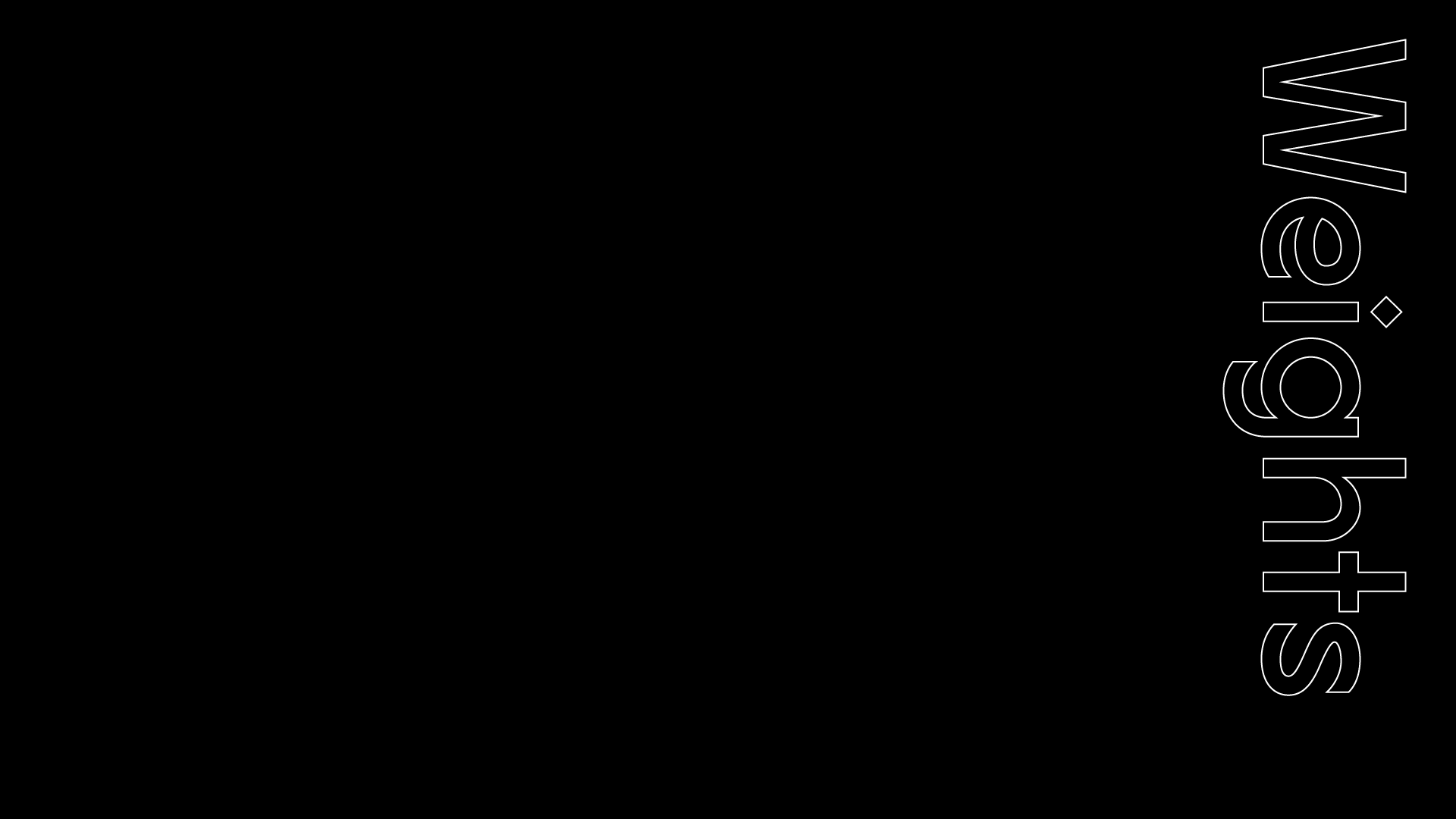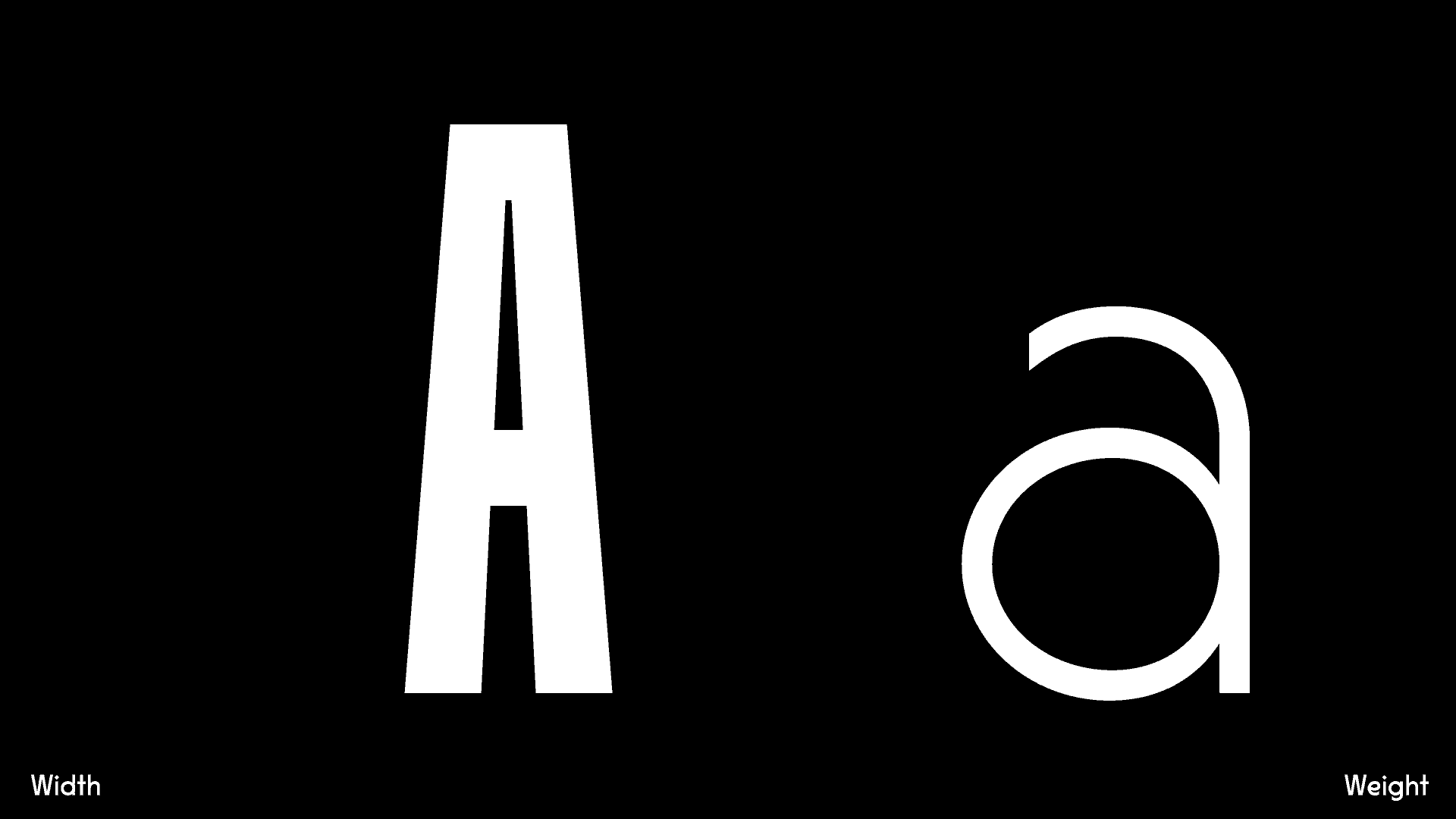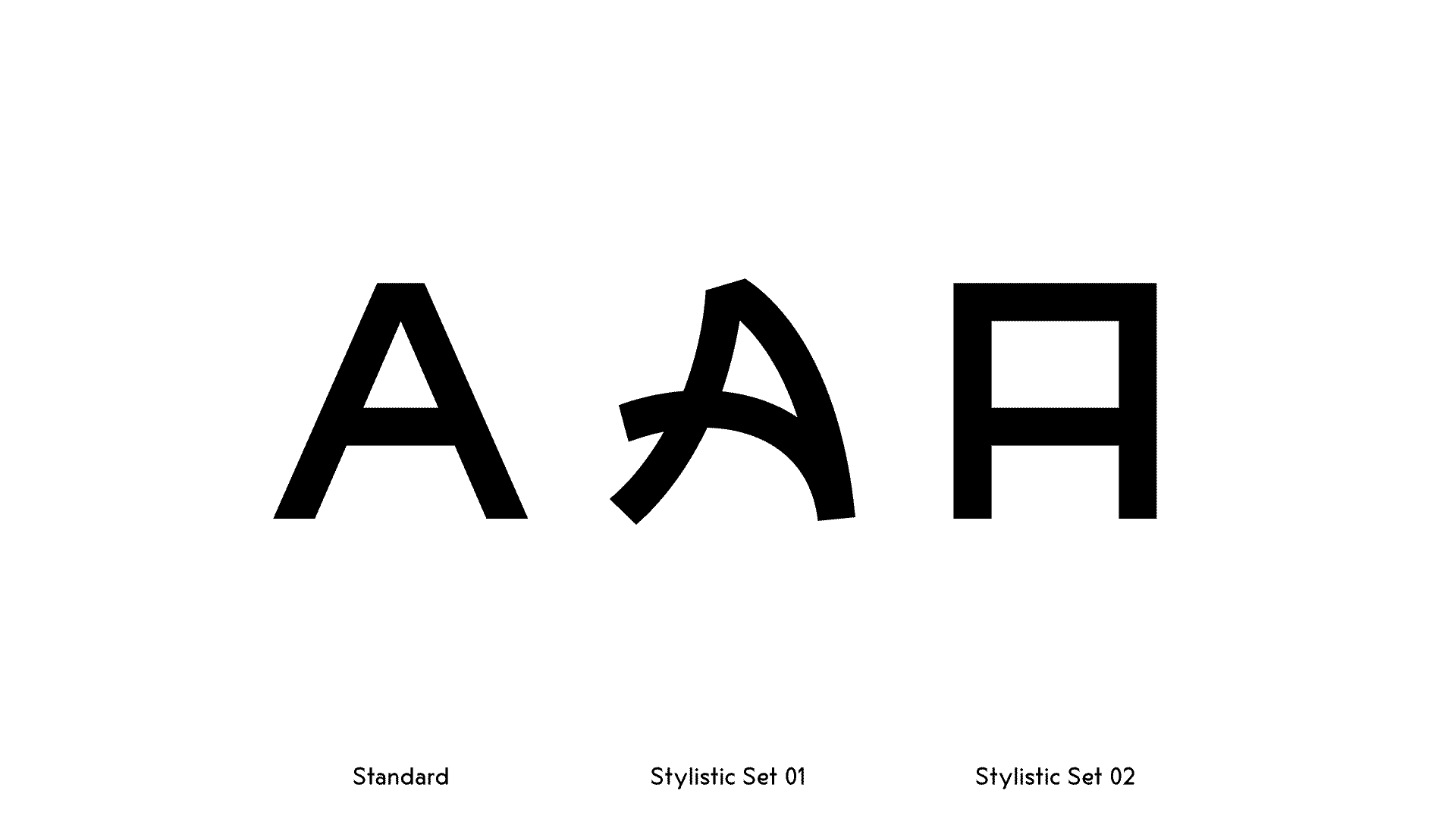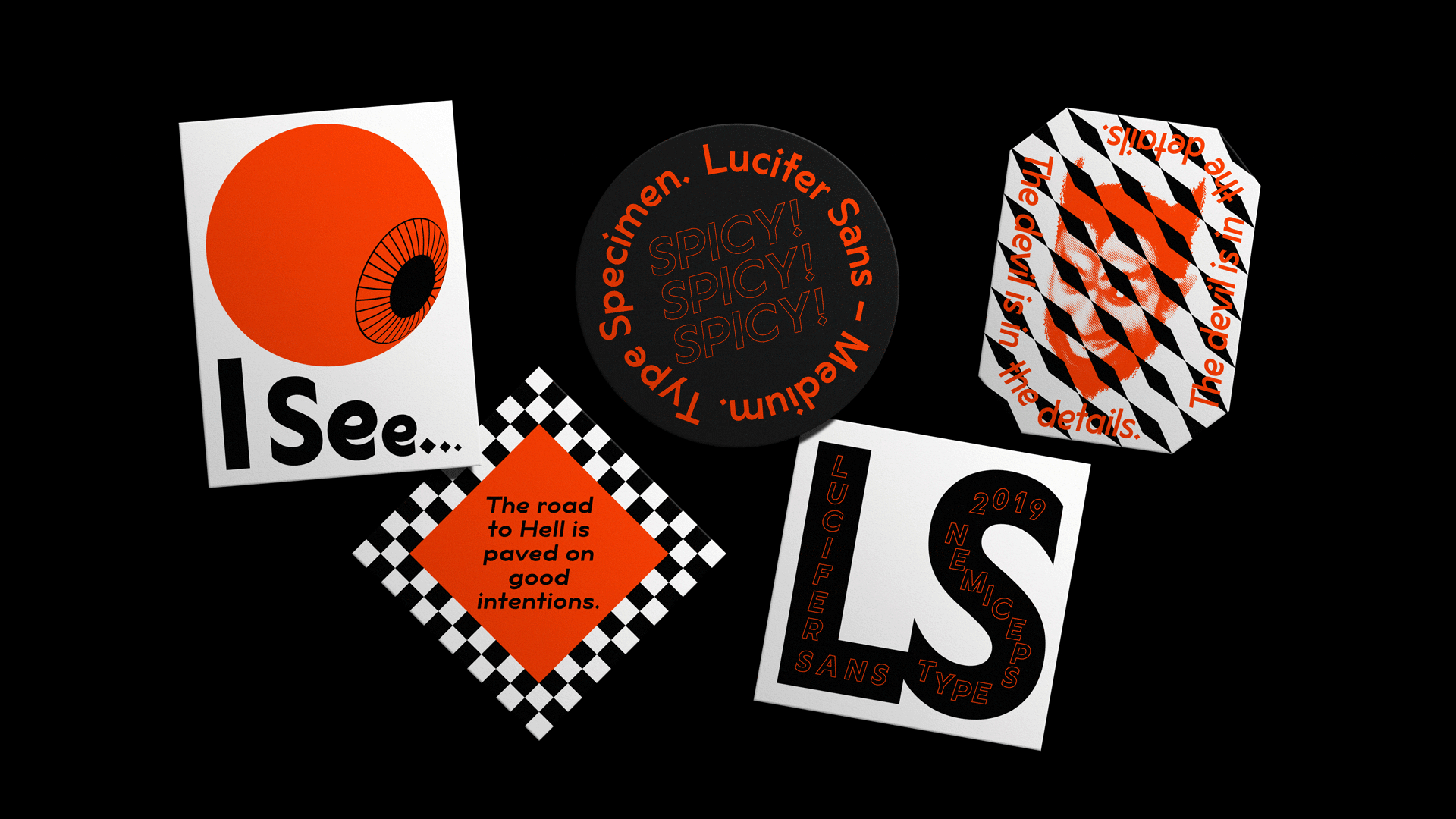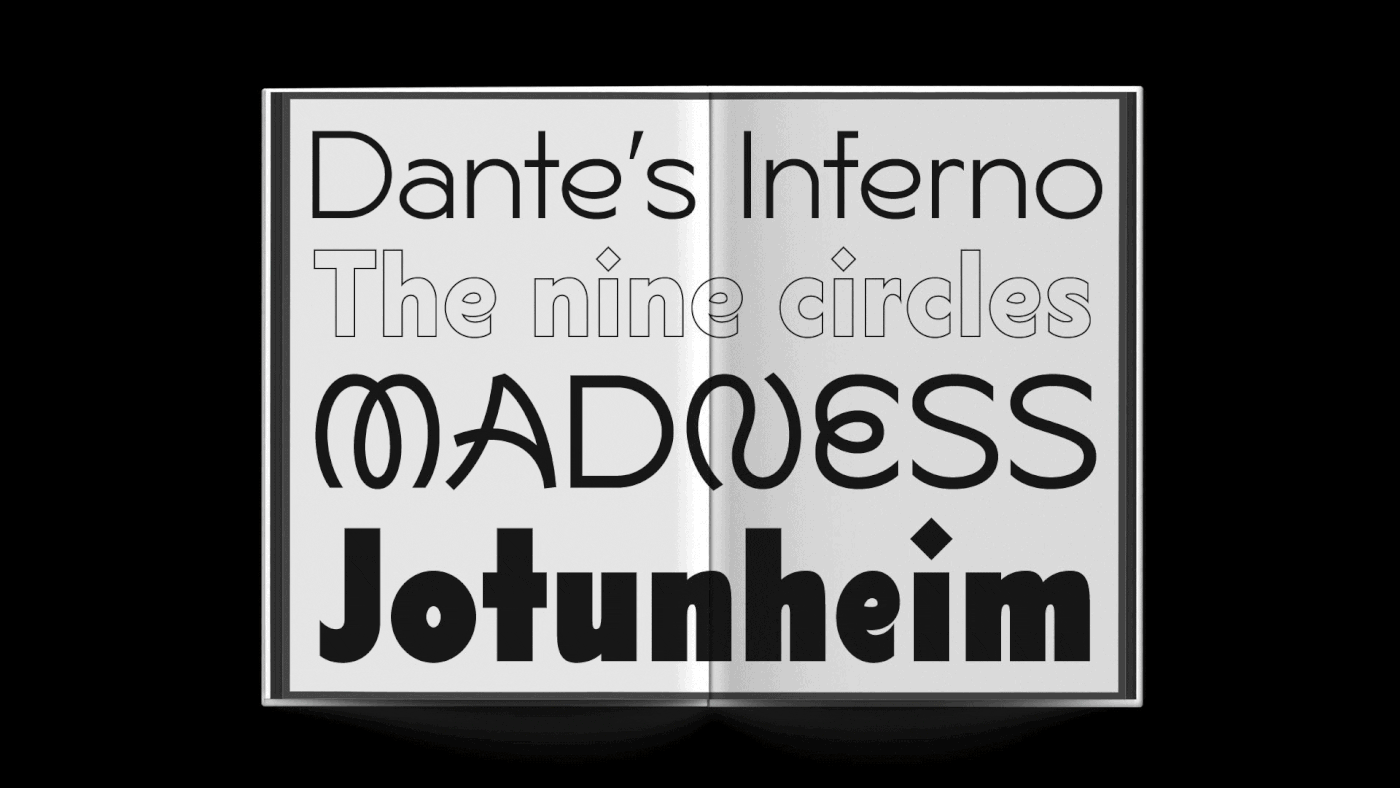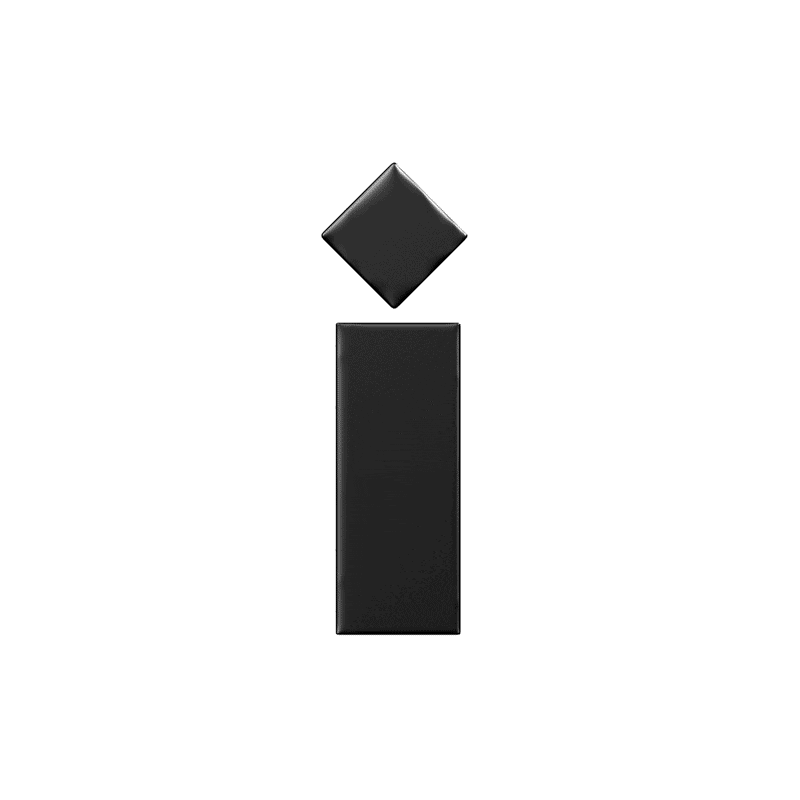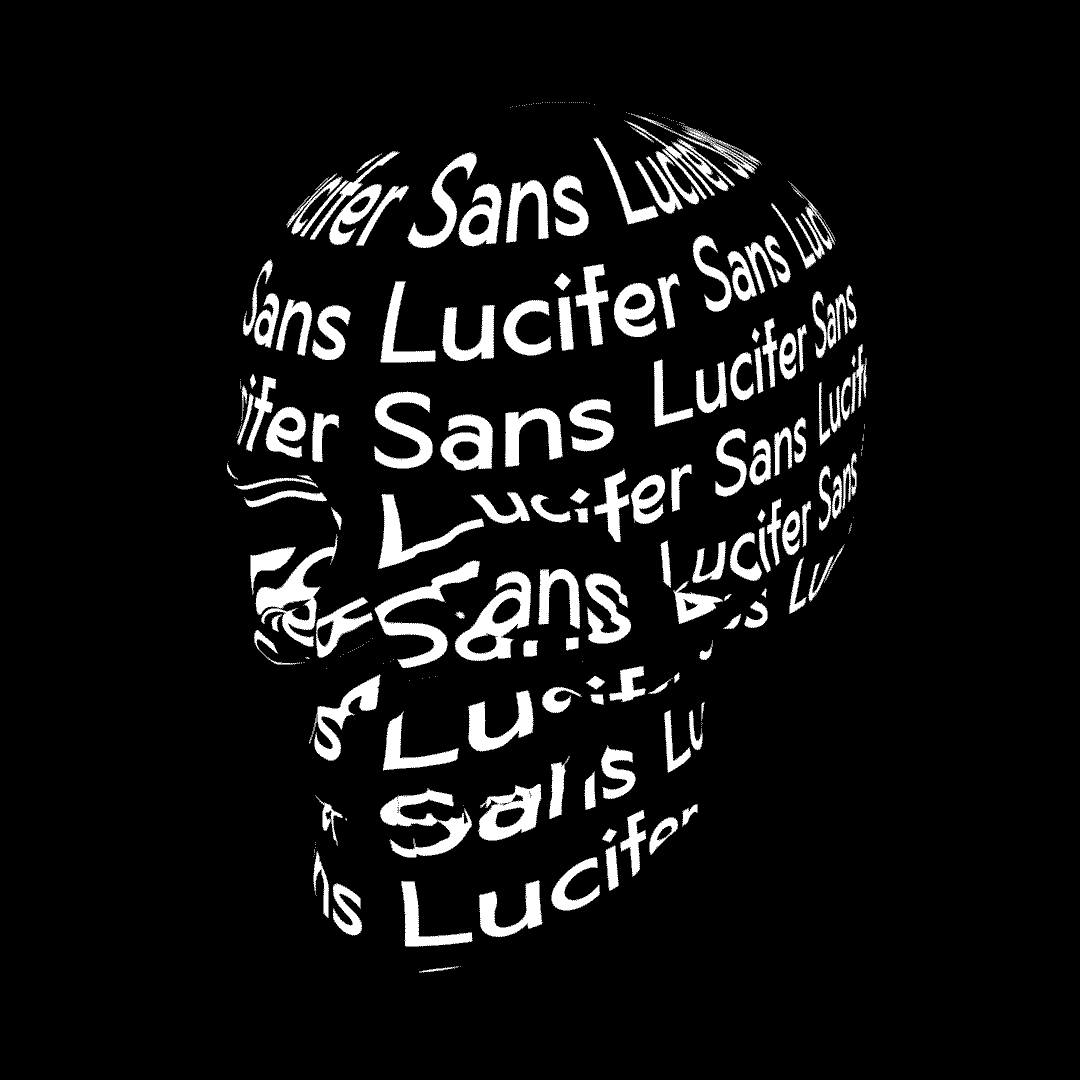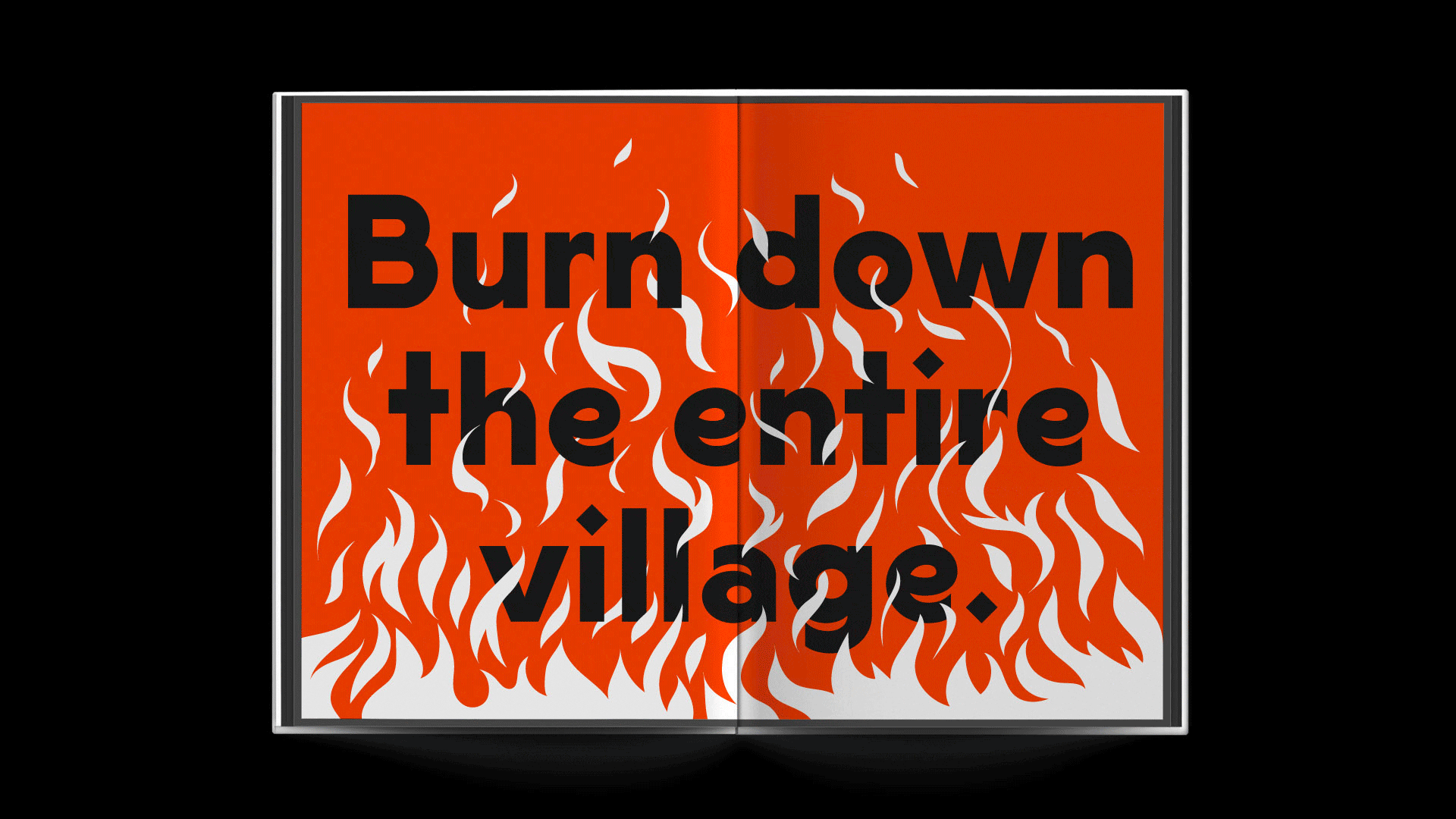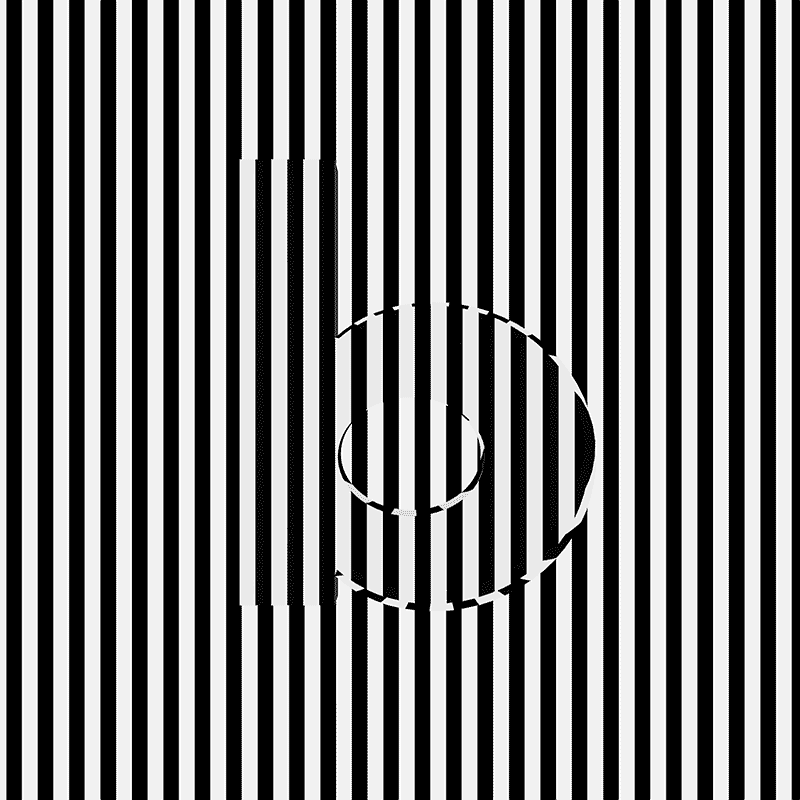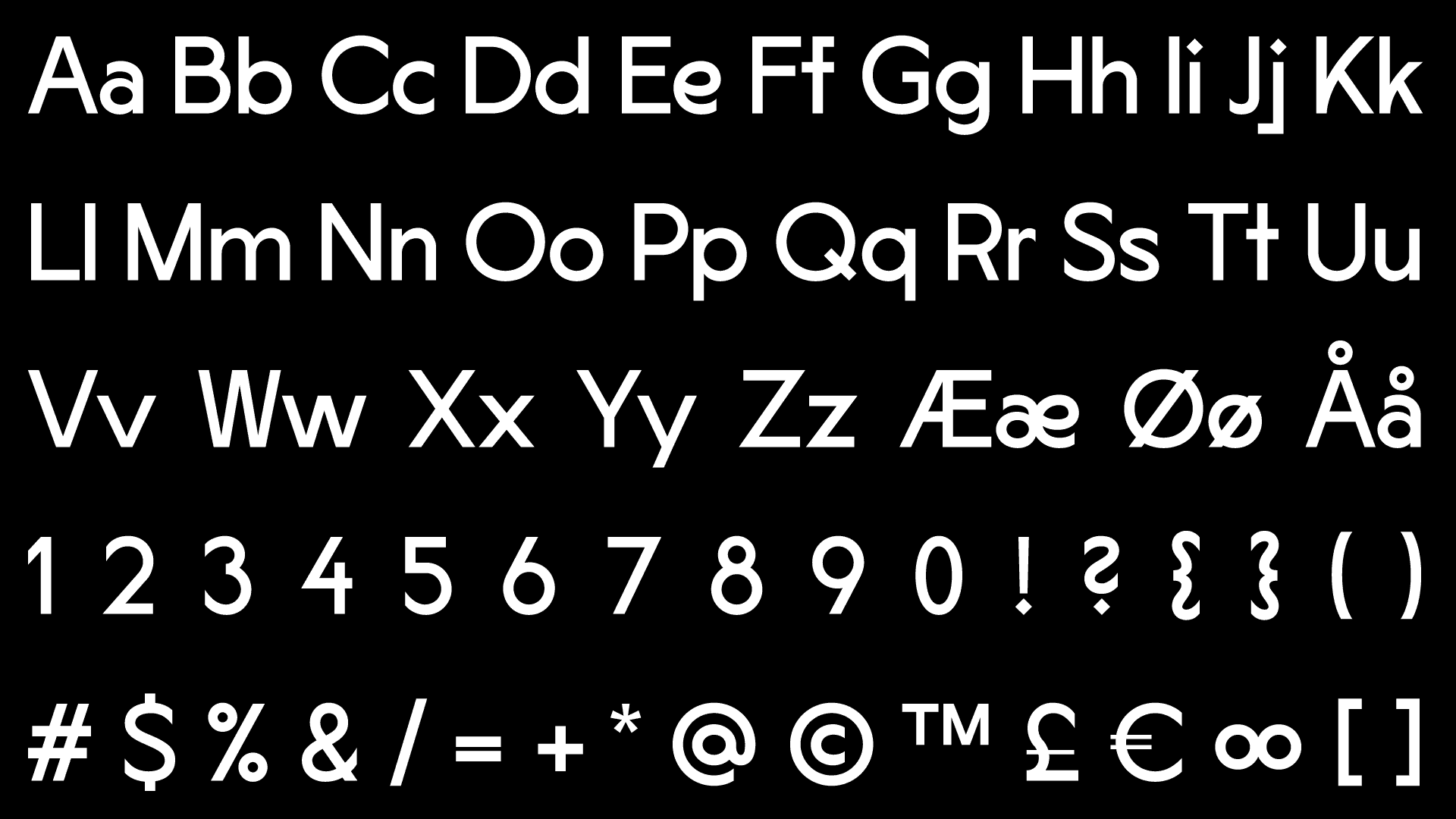
Daniel Brokstad designed Lucifer Sans - a modern sans serif font rooted in Scandinavian geometry and minimalism, mixed with a healthy dose of black metal and irreverent attitude. The font features a diverse cast of letters/u00a0/u2013/u00a0as well as additional stylistic sets /u2013/u00a0making it a very versatile font./u00a0Nine weights and widths across 162 Font Variations.